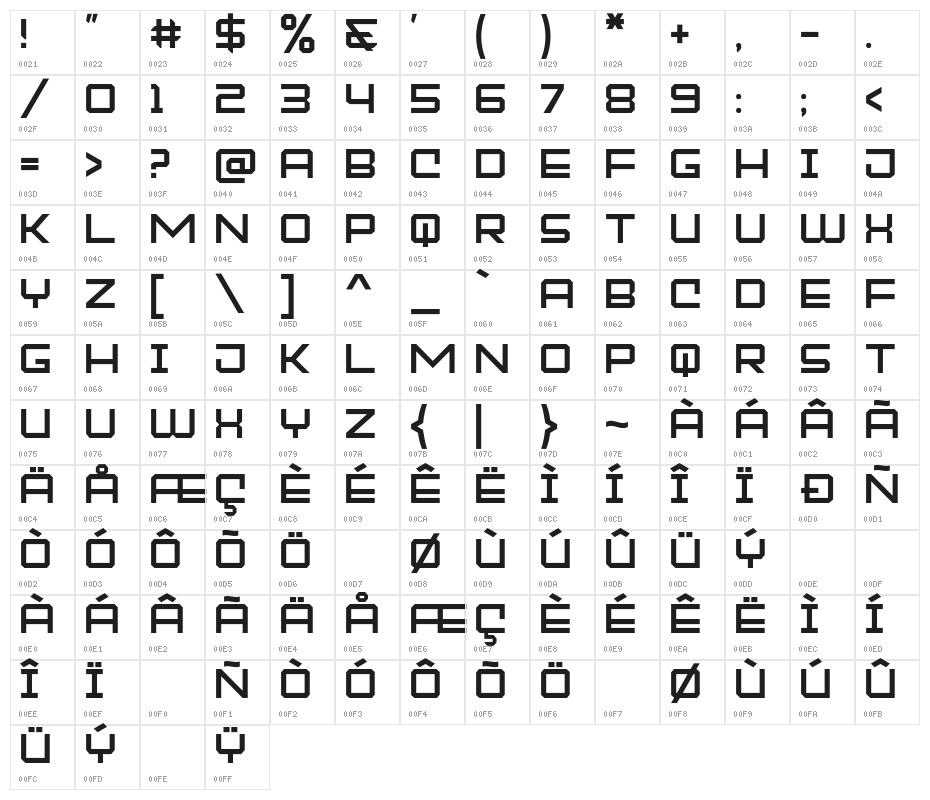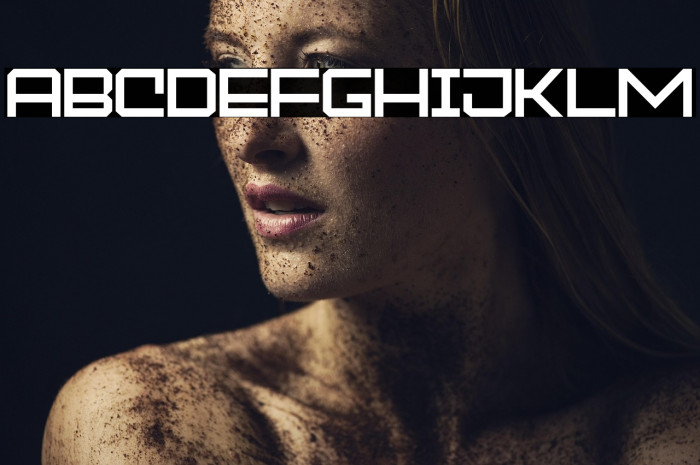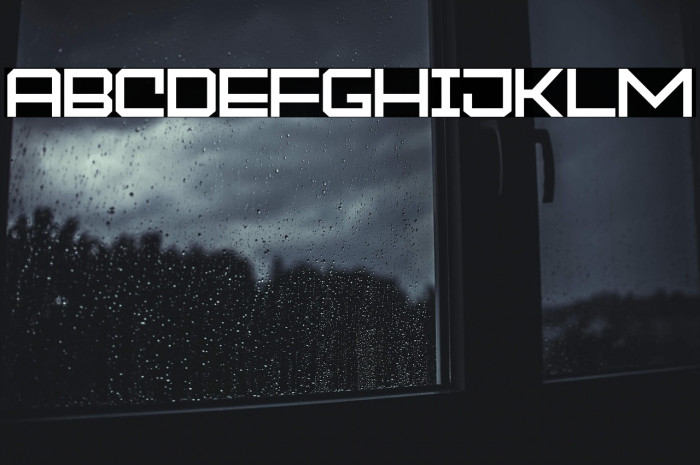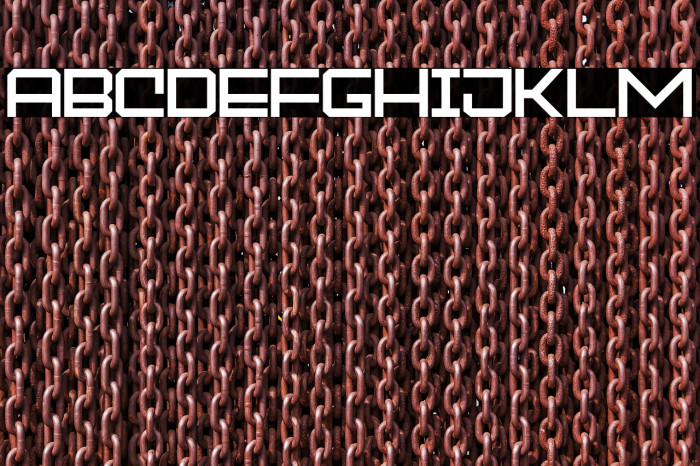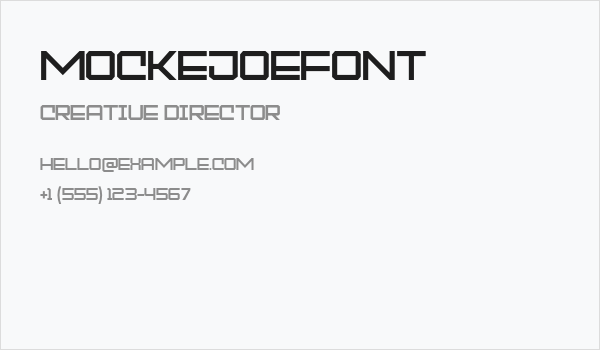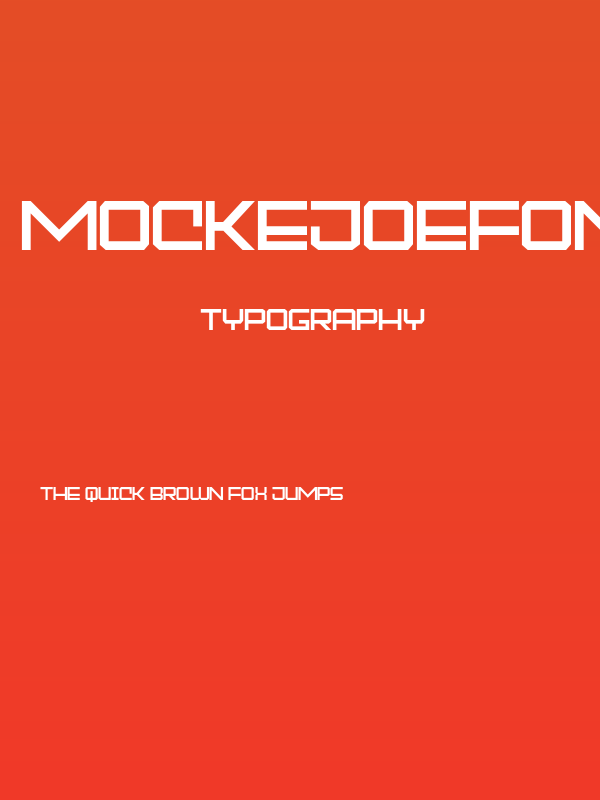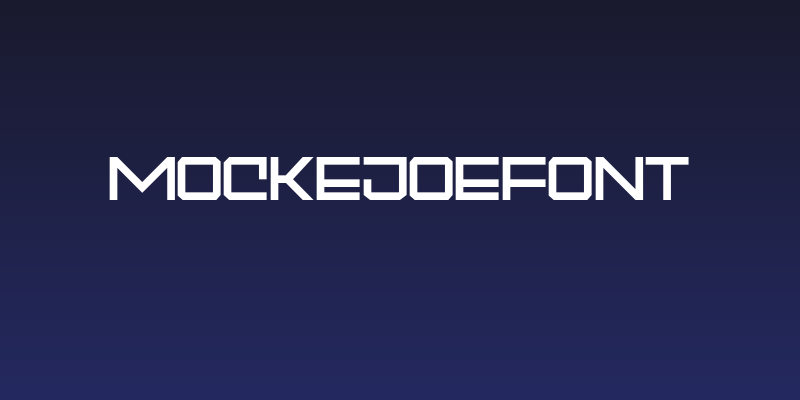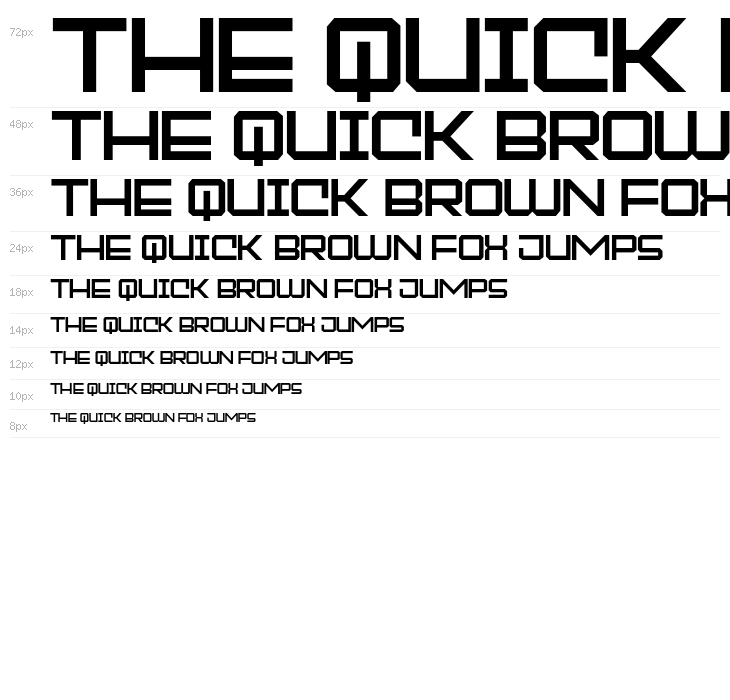
MOCKEJOEFONT Font
MOCKEJOEFONT Description
This font features a bold, geometric design with a futuristic aesthetic. The characters are constructed with straight lines and sharp angles, giving it a modern and technical appearance. The uppercase and lowercase letters maintain a consistent style, with a uniform height and width that enhances readability. Numbers and special characters are designed to match the overall angular theme, making them stand out in any design. The font's structure is clean and precise, ideal for projects that require a contemporary and edgy look.
| Proposed Projects | Ideal for technology branding, sci-fi themed designs, video game interfaces, and modern advertising. |